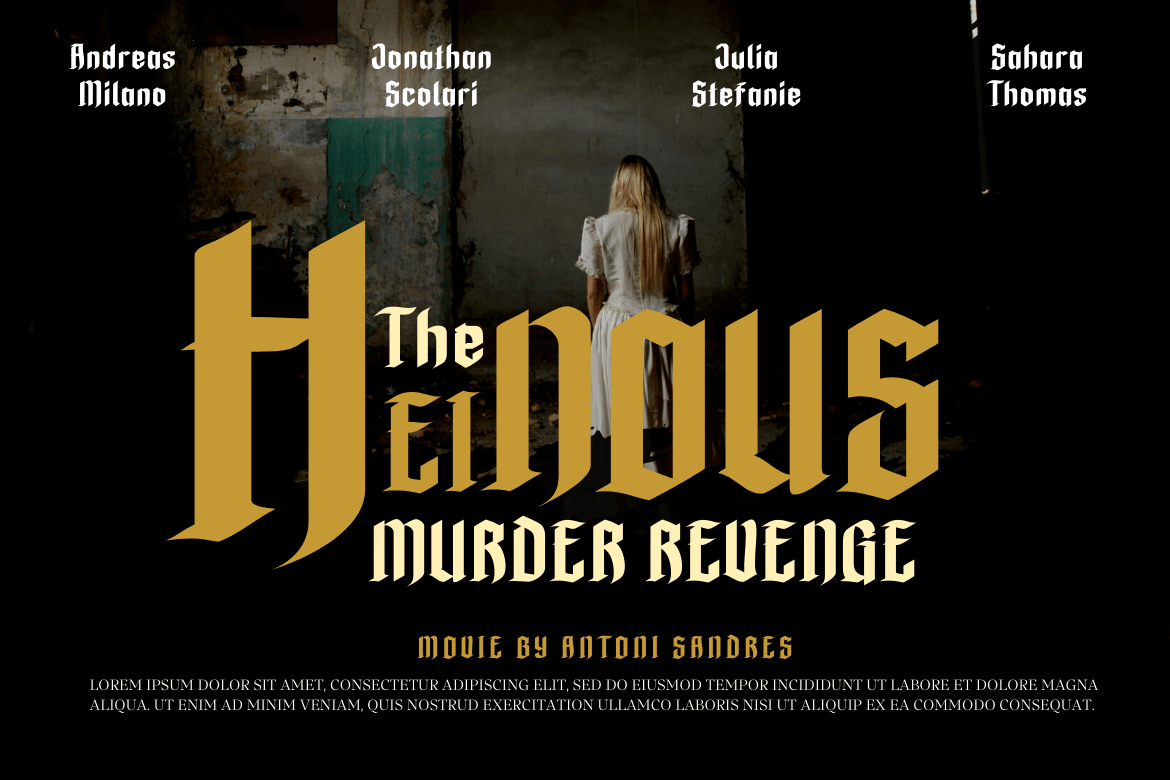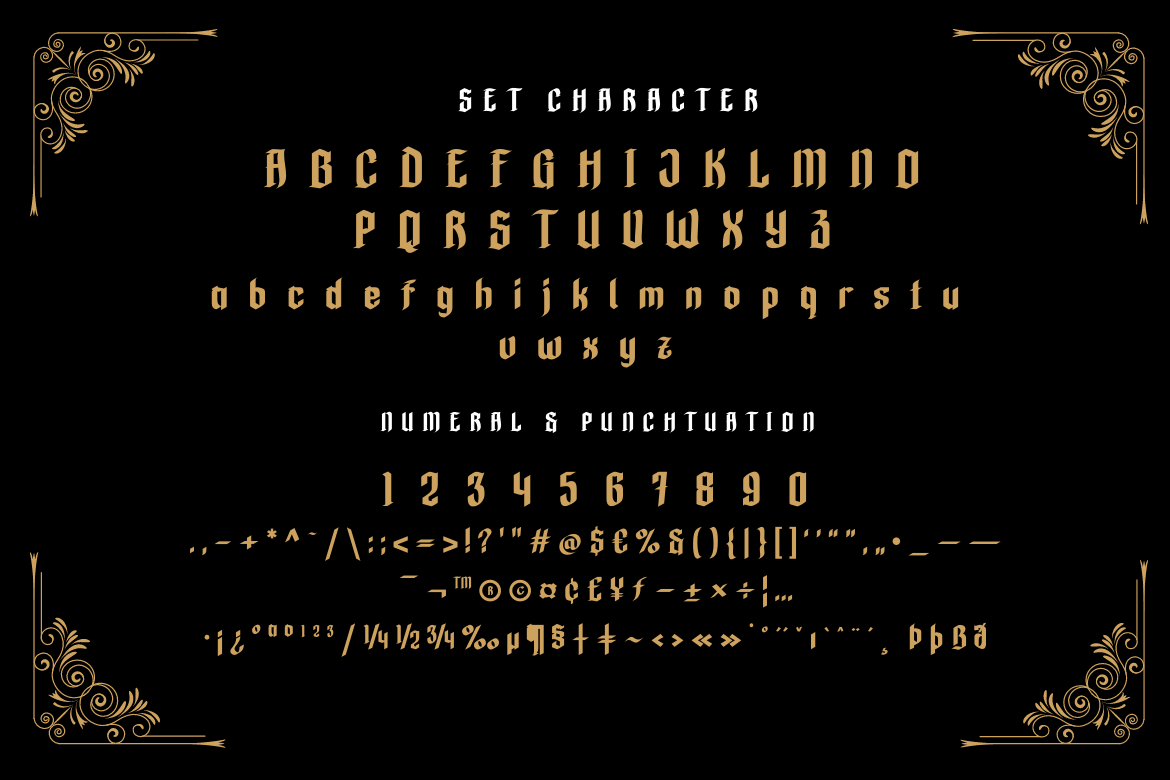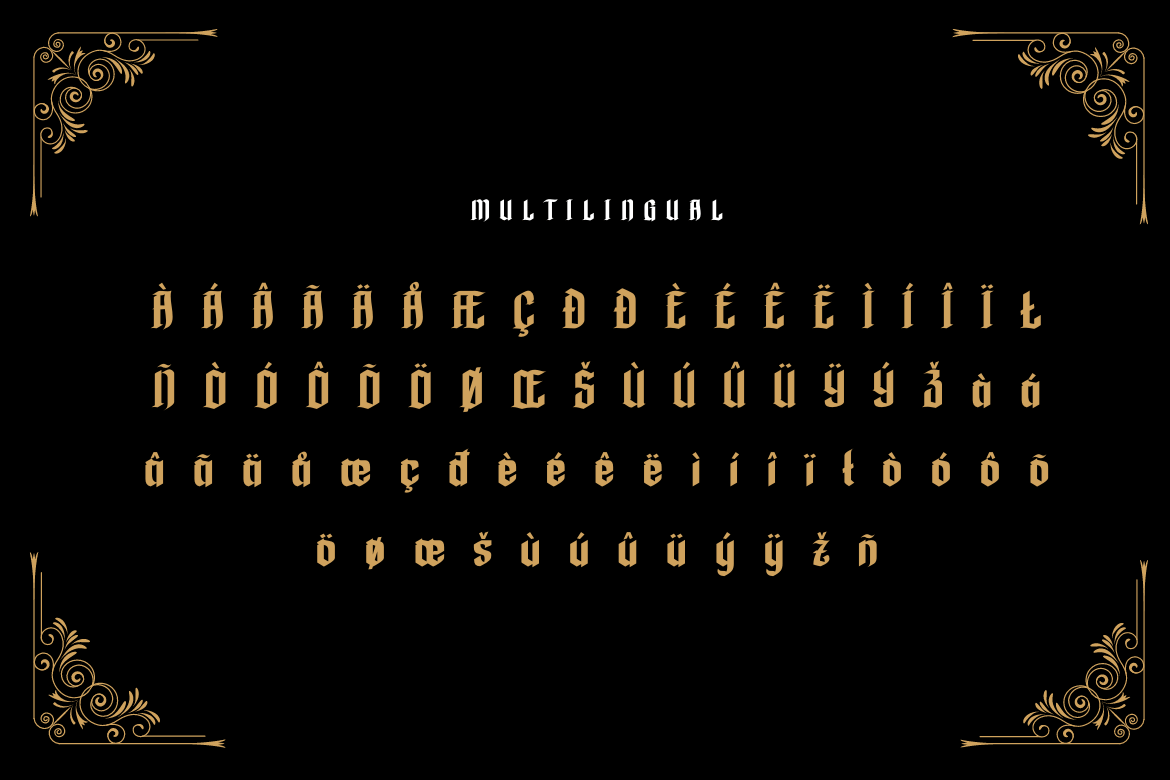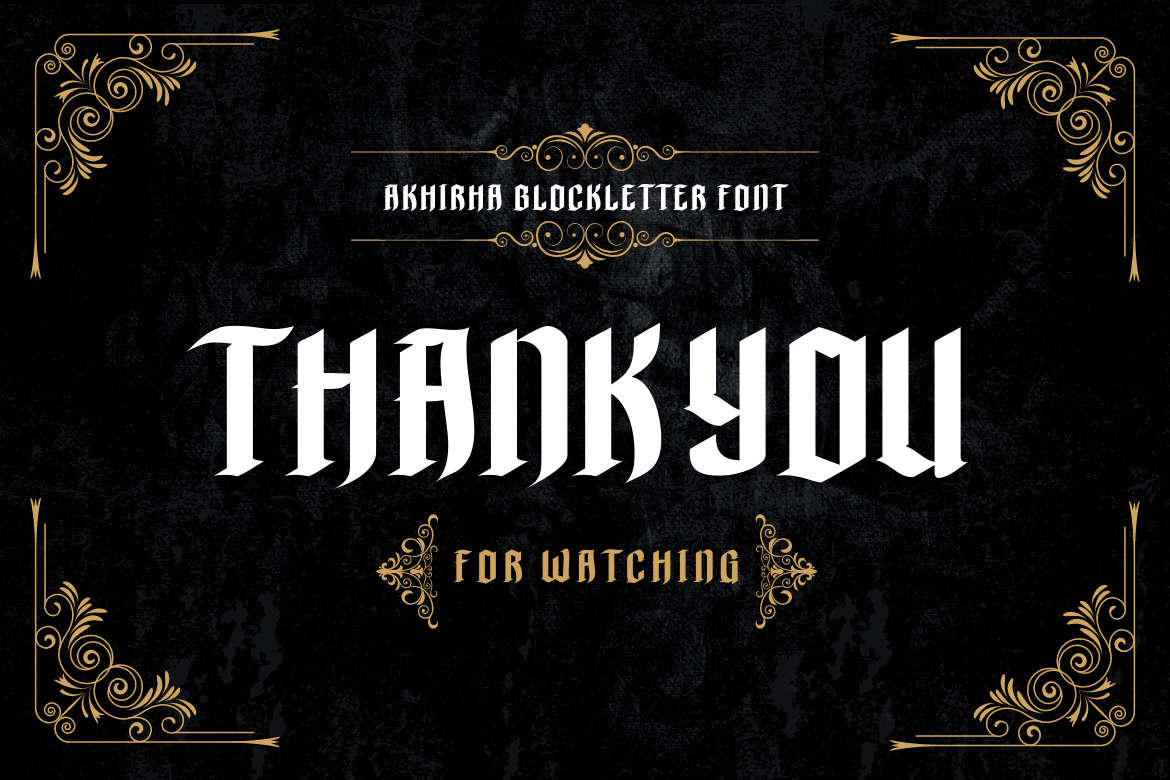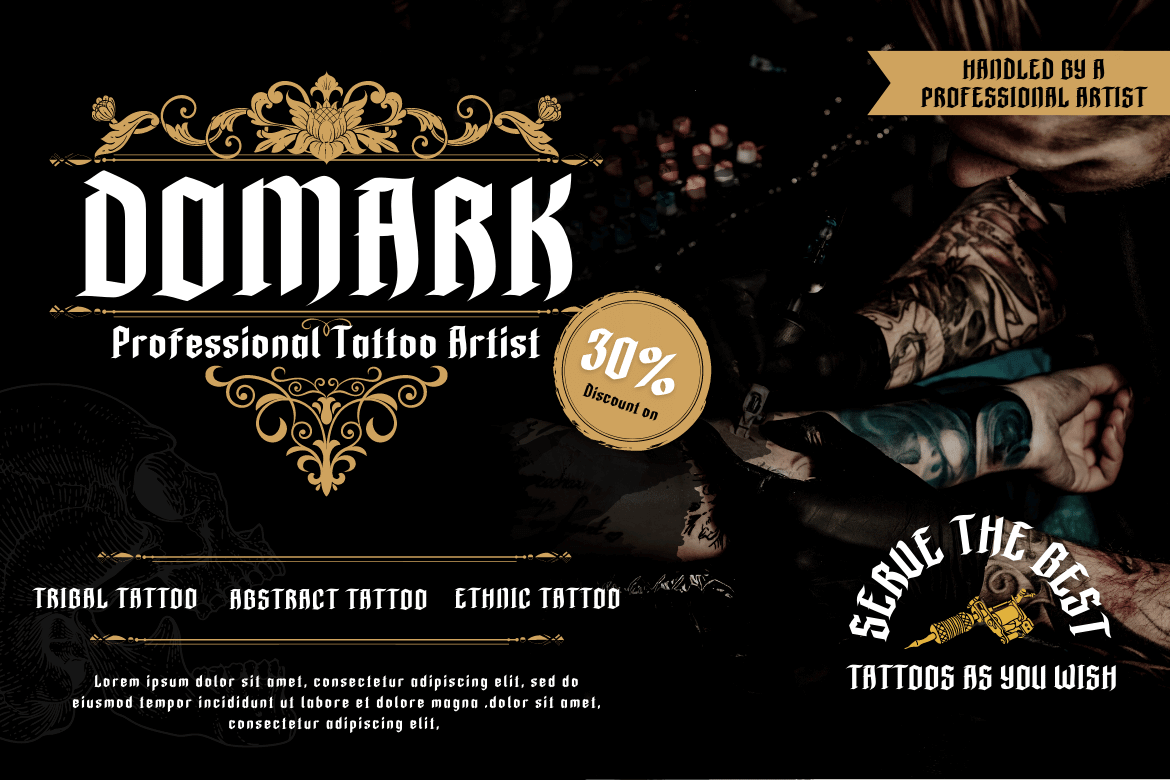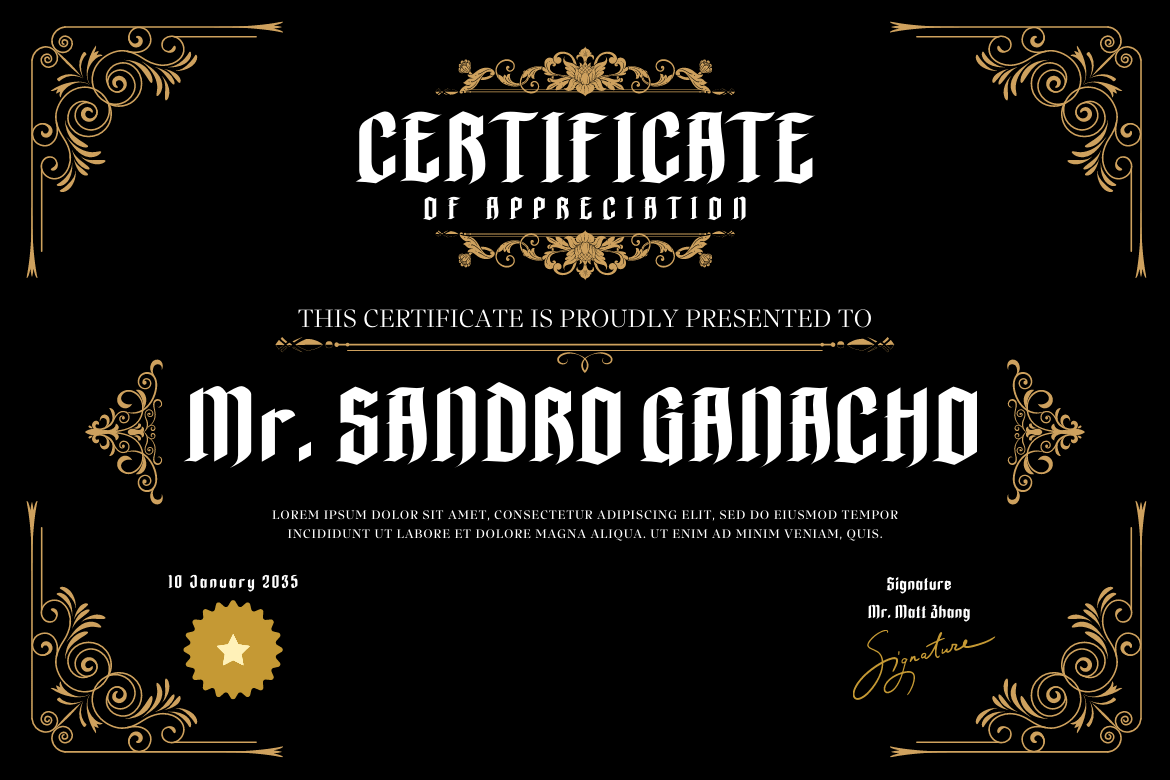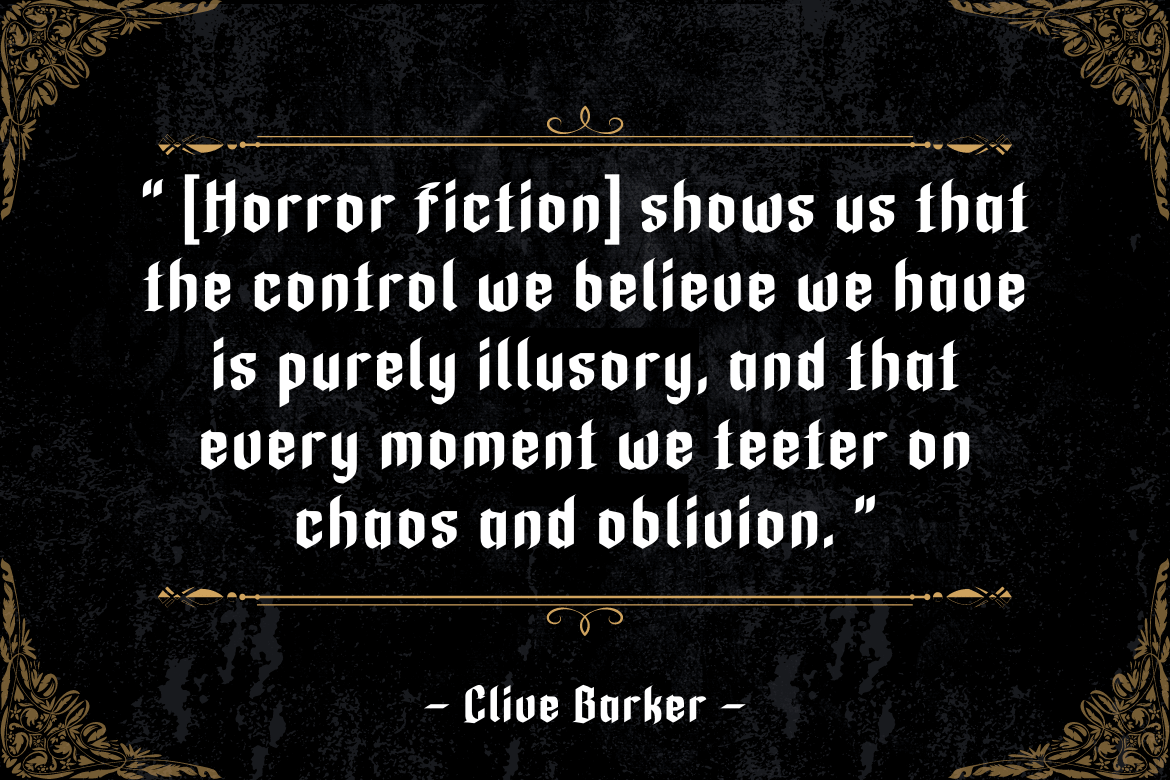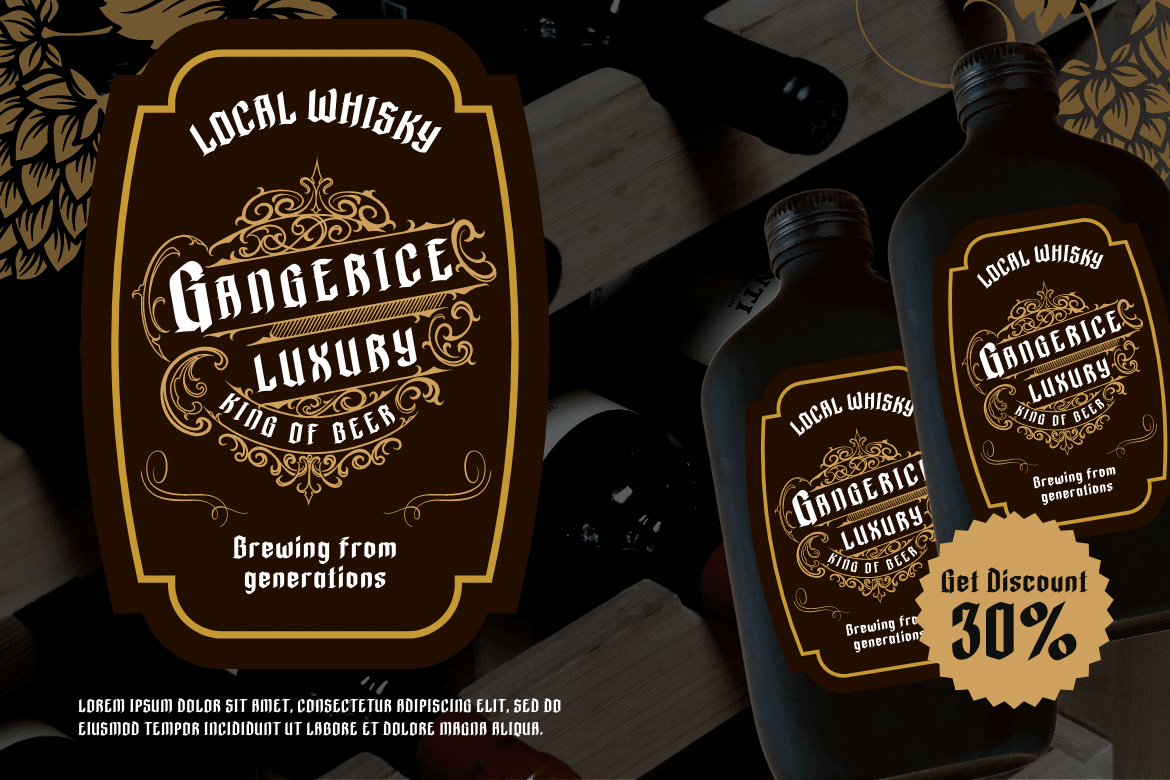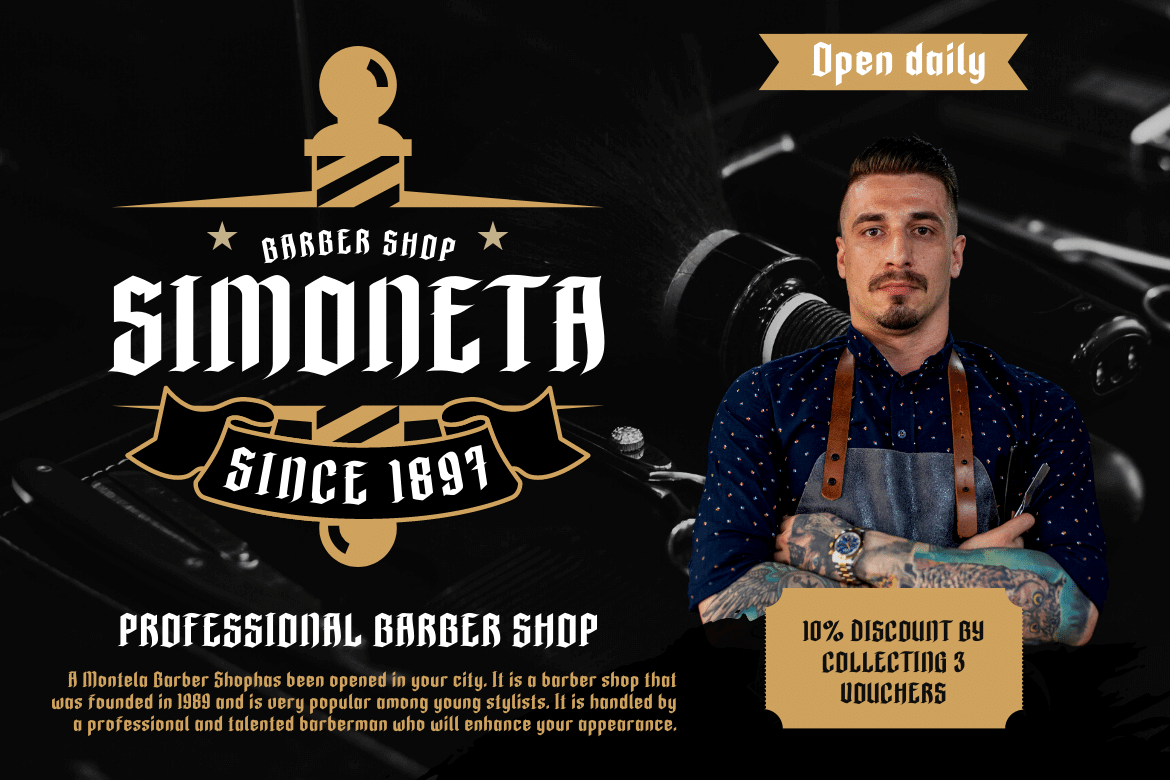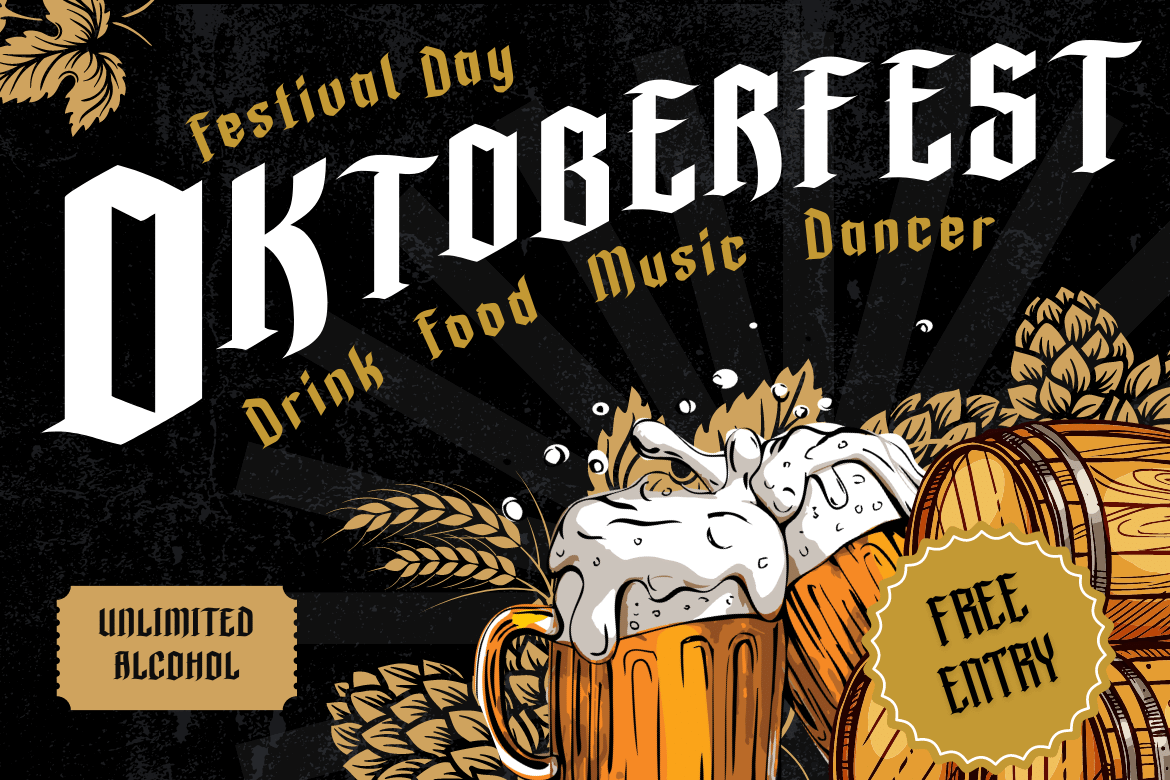
KIRHA
Introducing our newest gothic font called Kirha blackletter font, presenting a vintage and elegant style. With a classic typeface, this font evokes confident elegance with striking details on each side of the lettering. Use this font to enhance visual projects that require a bold classic look that exudes style, elegance, and strong personality.